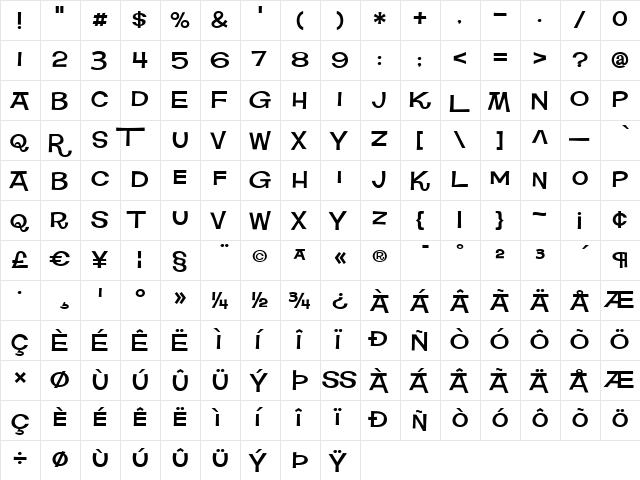
Square Meal Medium
Design Context for Square Meal Typeface
Square Meal offers clean, dependable letterforms without strong stylistic allegiance, making it a practical choice for designers who need flexibility.
Pro Tip: Use Square Meal in both headline and body roles to test its range before committing to a single application.